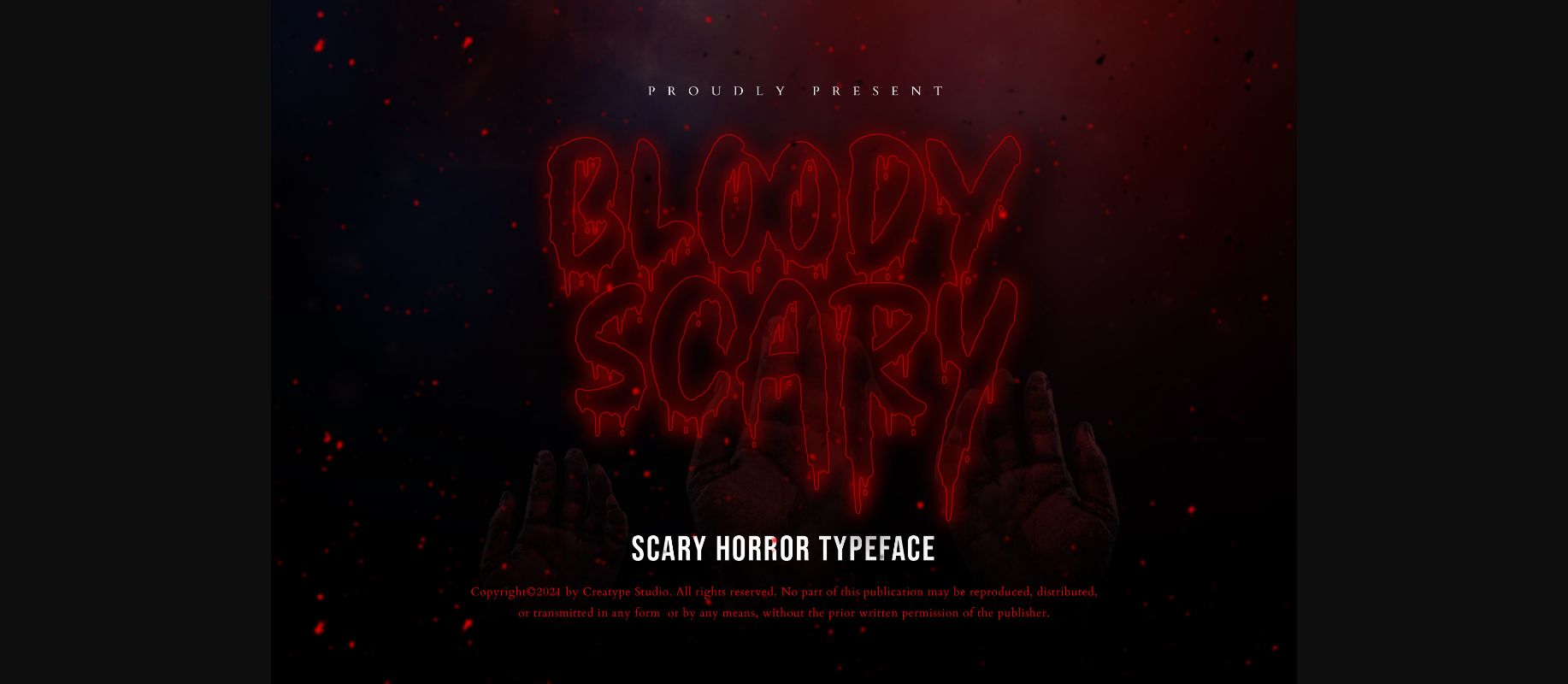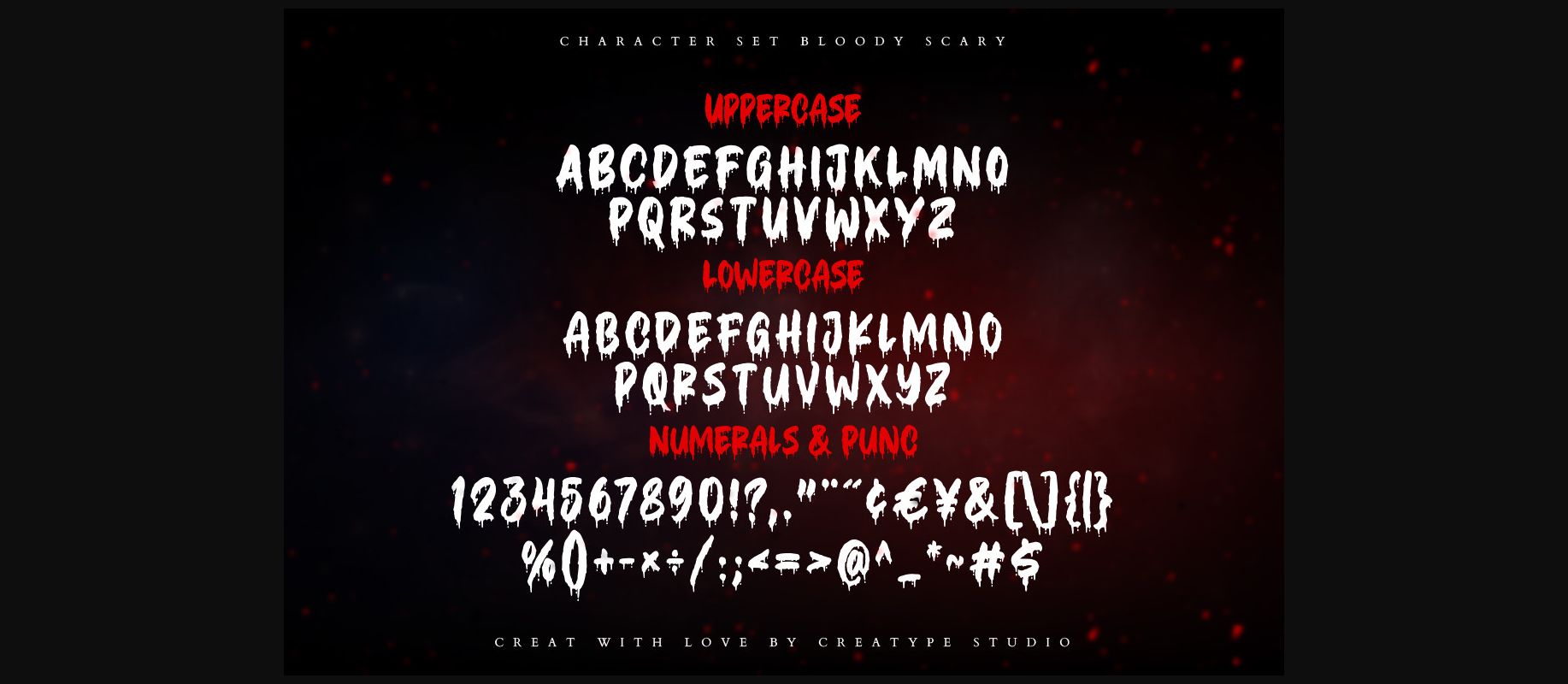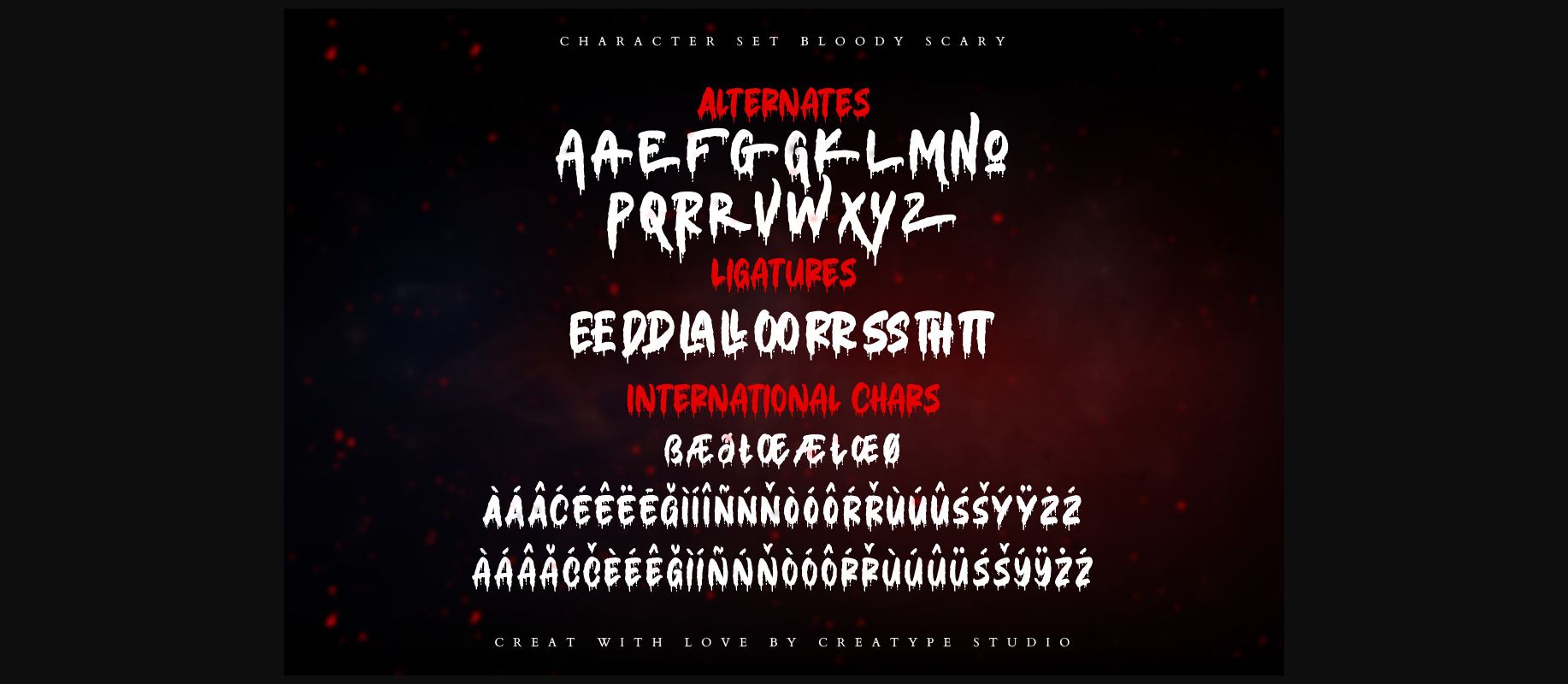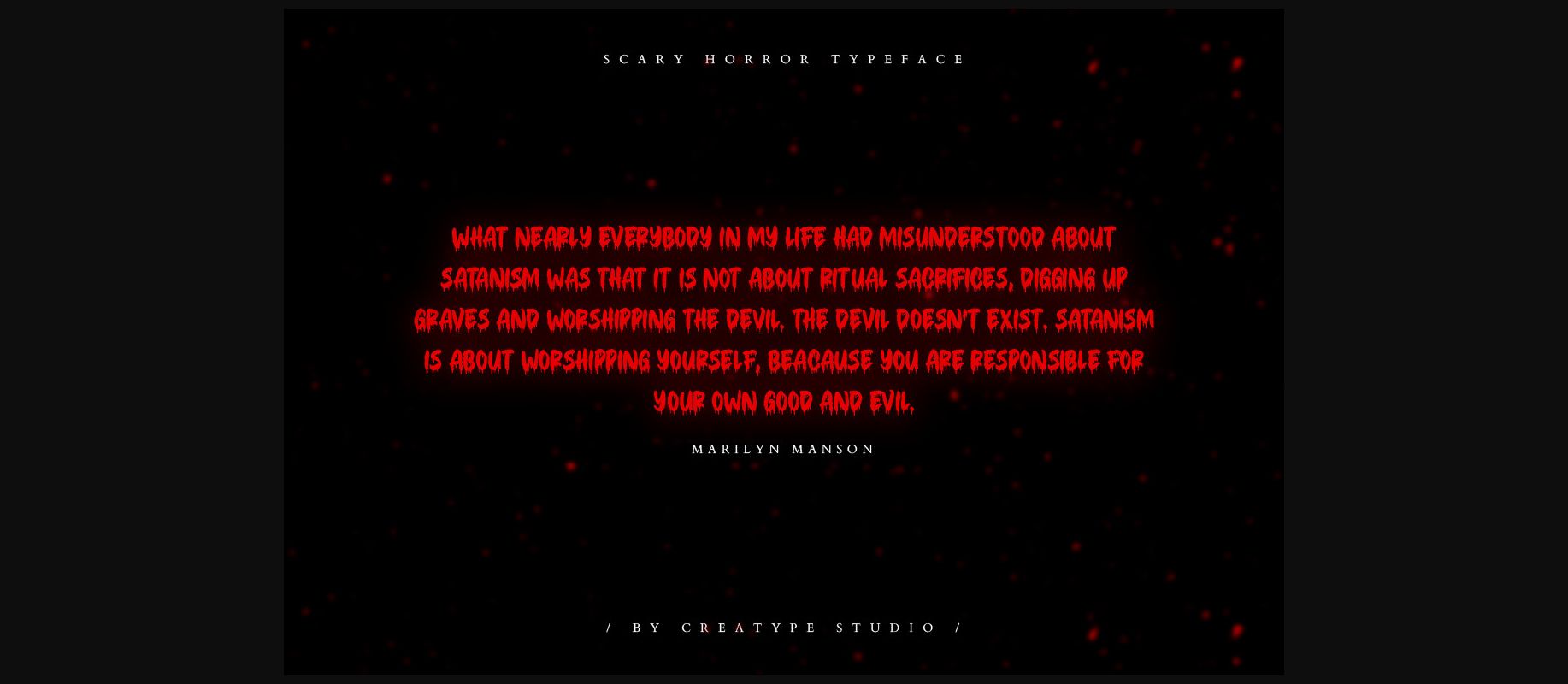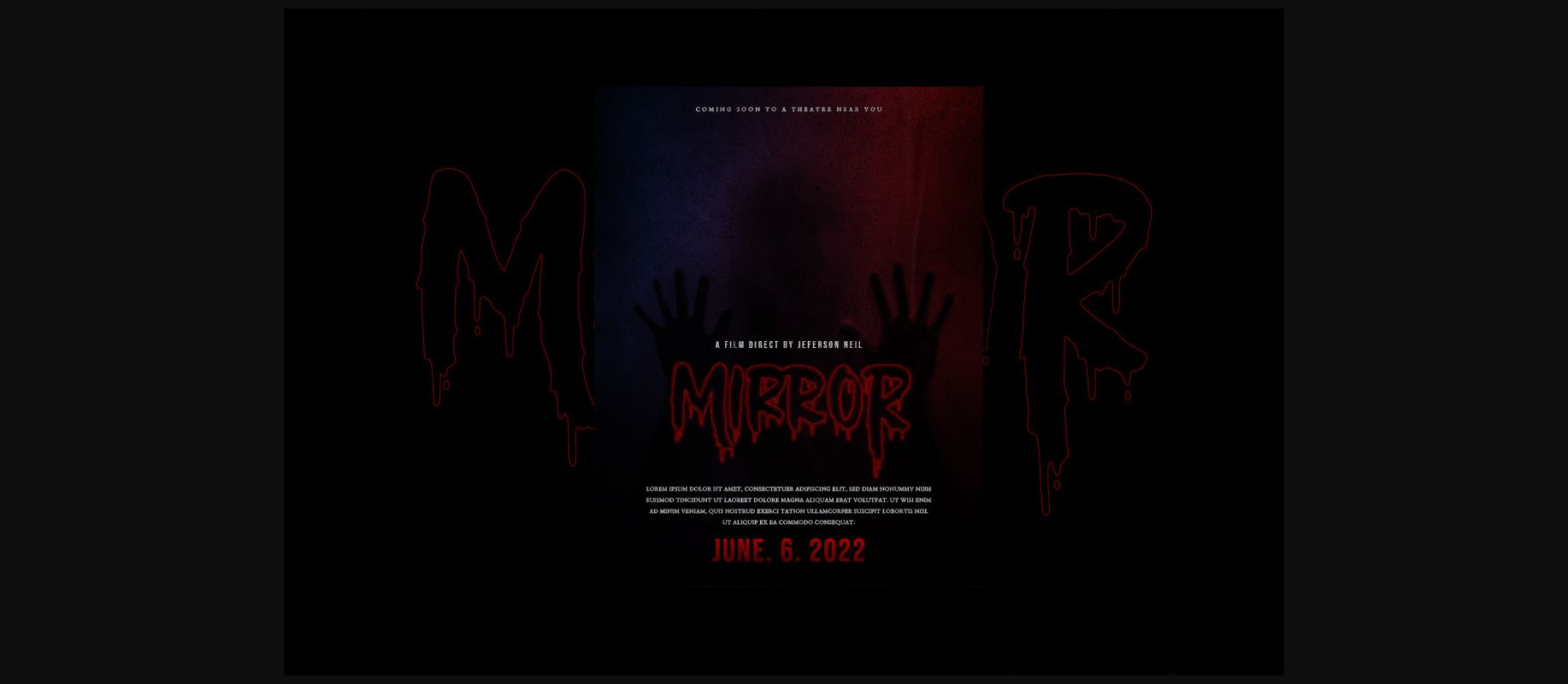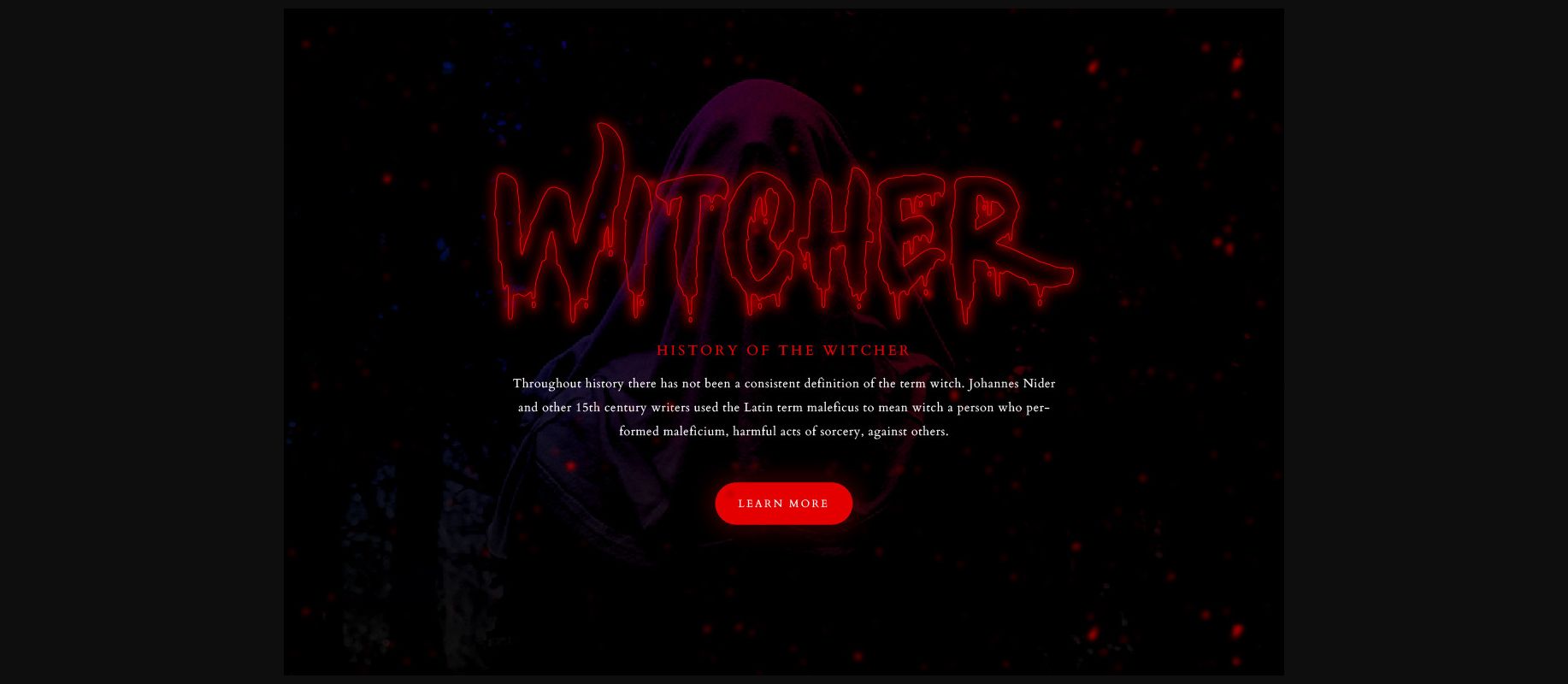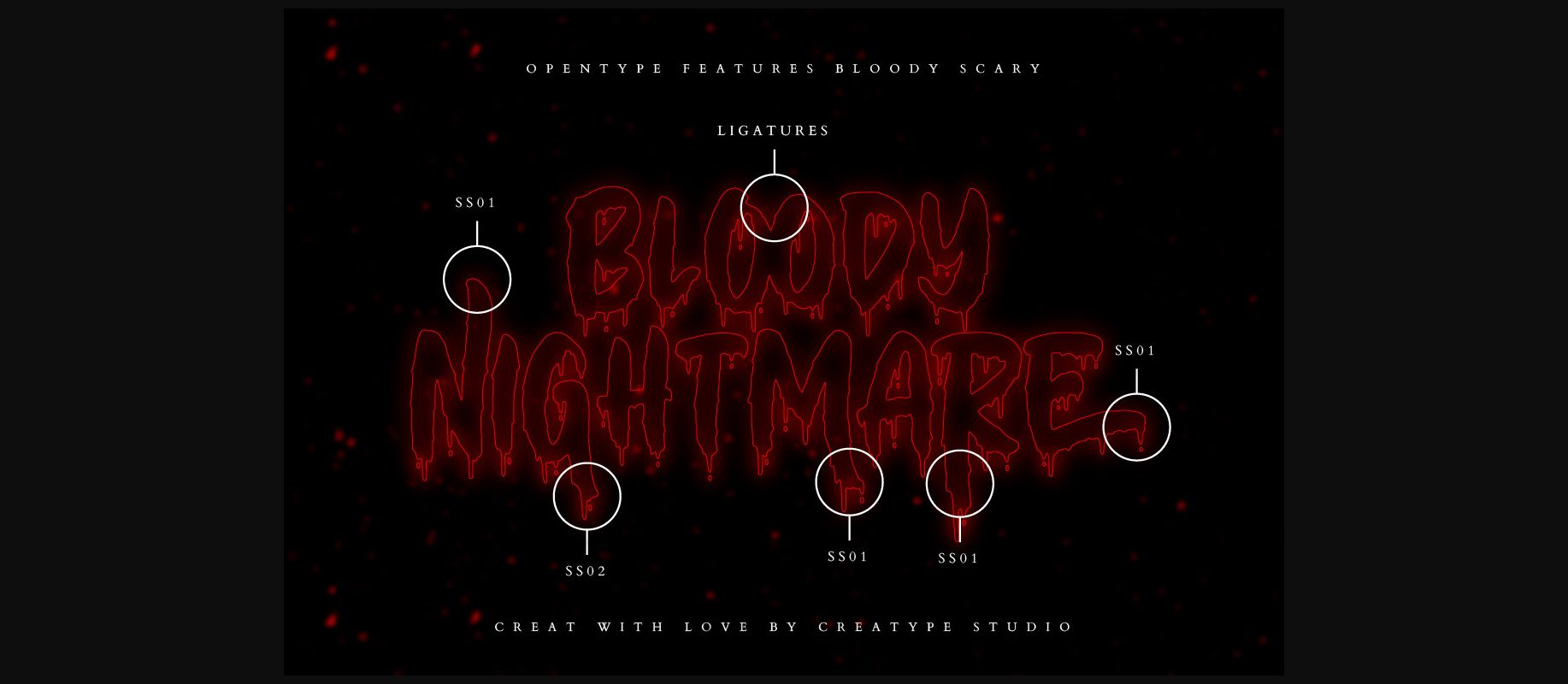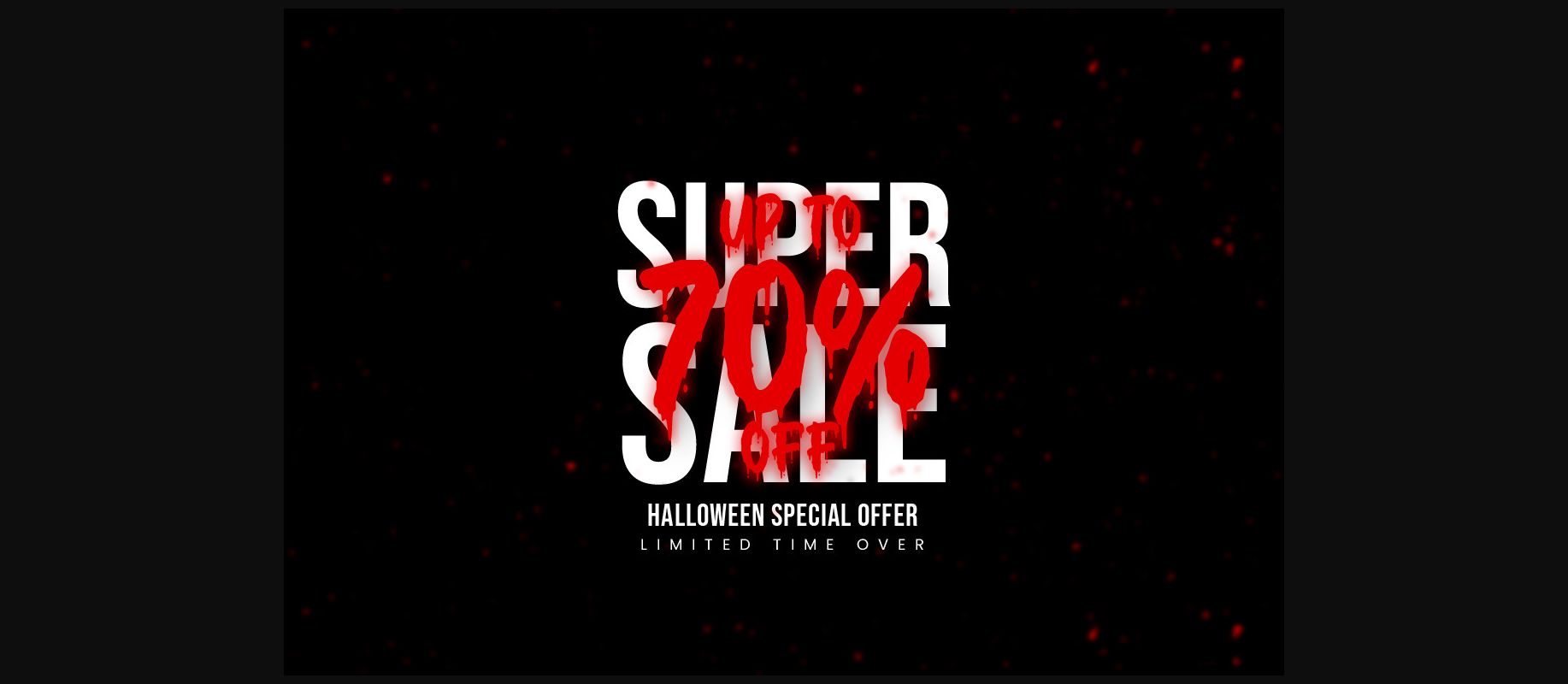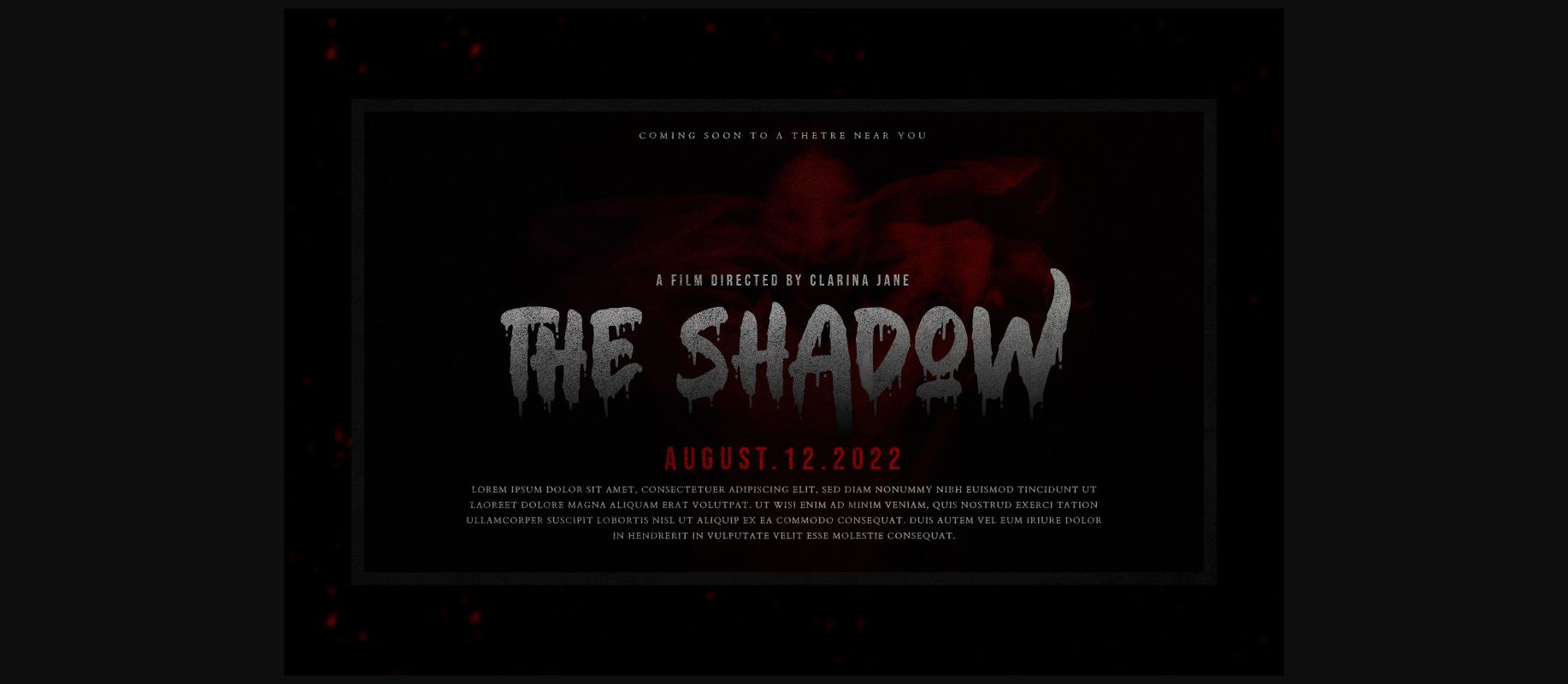
Bloody Scary Font
About Bloody Scary Font
Bloody Scary is a scary horror decorative font especially created by experts, resulting in this amazing font. This font is impressive, with its natural-looking brushed appearance making it a great fit for your large projects. This font is PUA encoded which means you can access all of the glyphs and swashes with ease!